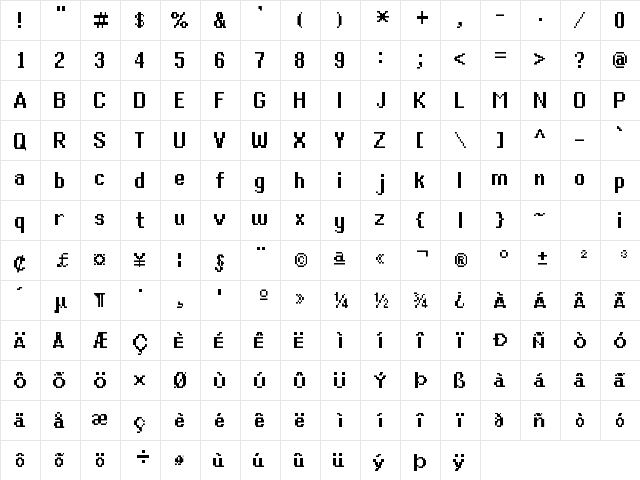
Generic Mobile System Regular
| Designer | Jayvee Enaguas (HarvettFox96) |
Design Context for Generic Mobile System Typeface
Generic Mobile System offers clean, dependable letterforms without strong stylistic allegiance, making it a practical choice for designers who need flexibility.